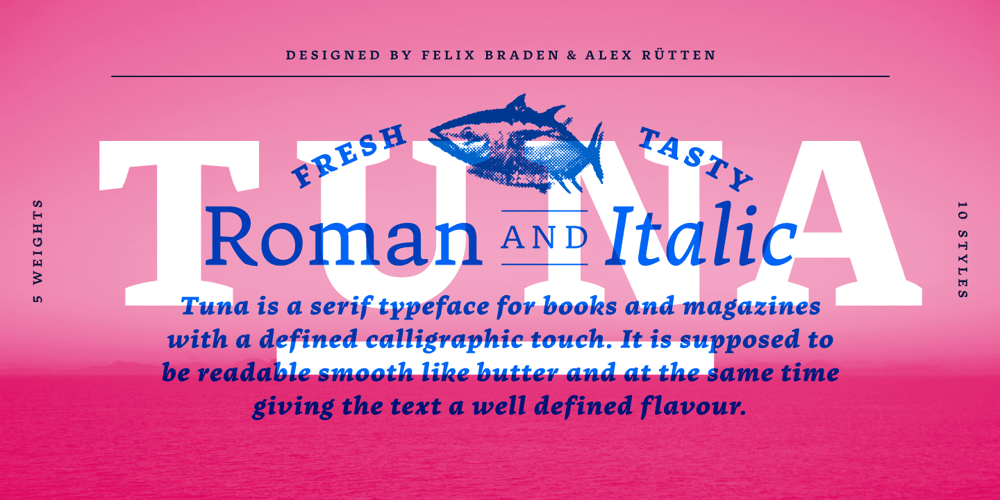
Tuna
Tuna font
Tuna Font Family was designed by Felix Braden, Alex Rütten and published by Ligature Inc. Tuna contains 10 styles and family package options. Tuna is simply a contemporary body text font. It is contemporary, meaning the merge of charming broad-nibbed calligraphic style with optimized readability on screen – showing that the roots of writing and typesetting are still in charge when reading “Anna Karenina” on your Kindle till 4 o’clock in the morning. Tuna has a natural fit for cross-media use because the design is based on forms characterized by different conditions of constancy, stability and good readability. Well-defined shapes and distinctive details only become apparent when used in larger sizes, making Tuna a true all-rounder. With more than 700 glyphs in 10 styles created with a maximum of consideration, it has all the qualities of a modern OpenType font serving the needs of today’s communication. If you would like to read more about the Typeface please visit our promo site.